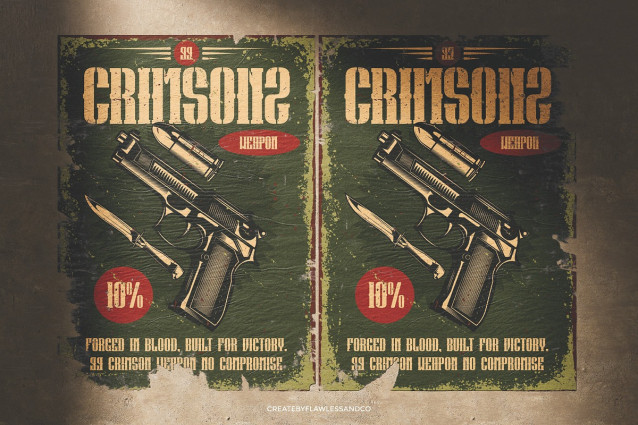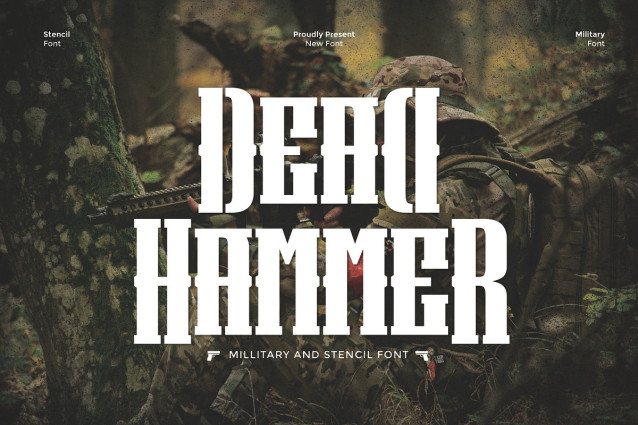
Dead Hammer Font
Dead Hammer Font is a bold military and stencil font forged with power and precision. Inspired by tactical gear and battlefield grit, this typeface delivers a strong, masculine presence built for high-impact visuals. With sharp cuts, heavy strokes, and a raw, industrial edge, DEADHAMMER is made for those who want to command attention. Perfect for army-themed posters, survival gear branding, tactical apparel, or any design that needs authority and force. Whether you’re creating a combat title, a military patch, or a gritty merchandise label — DEADHAMMER brings the firepower.